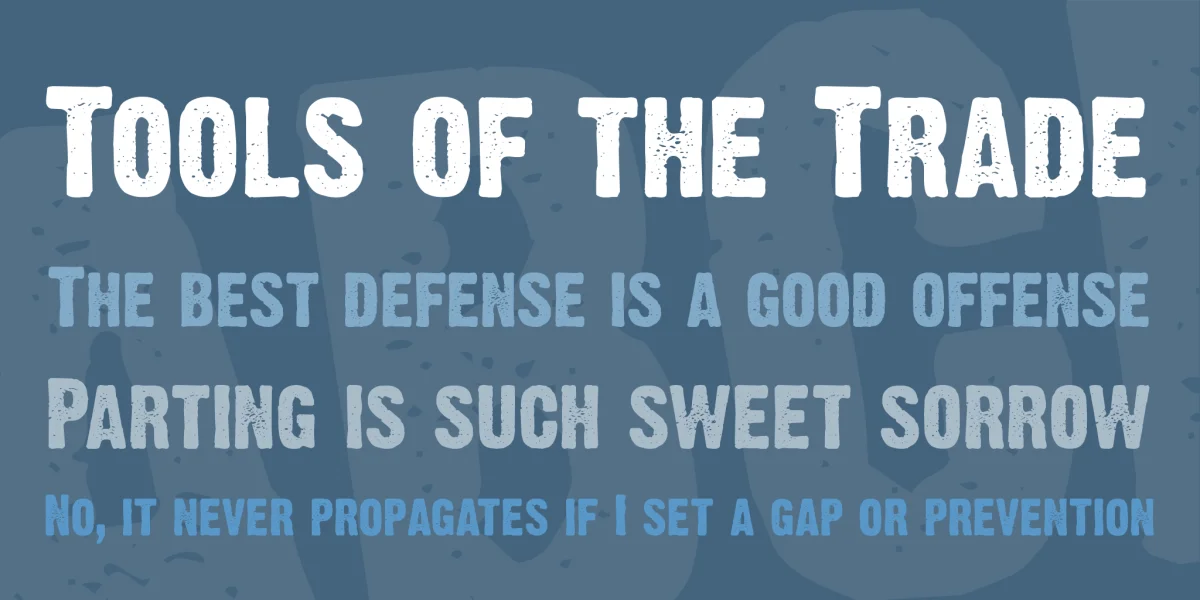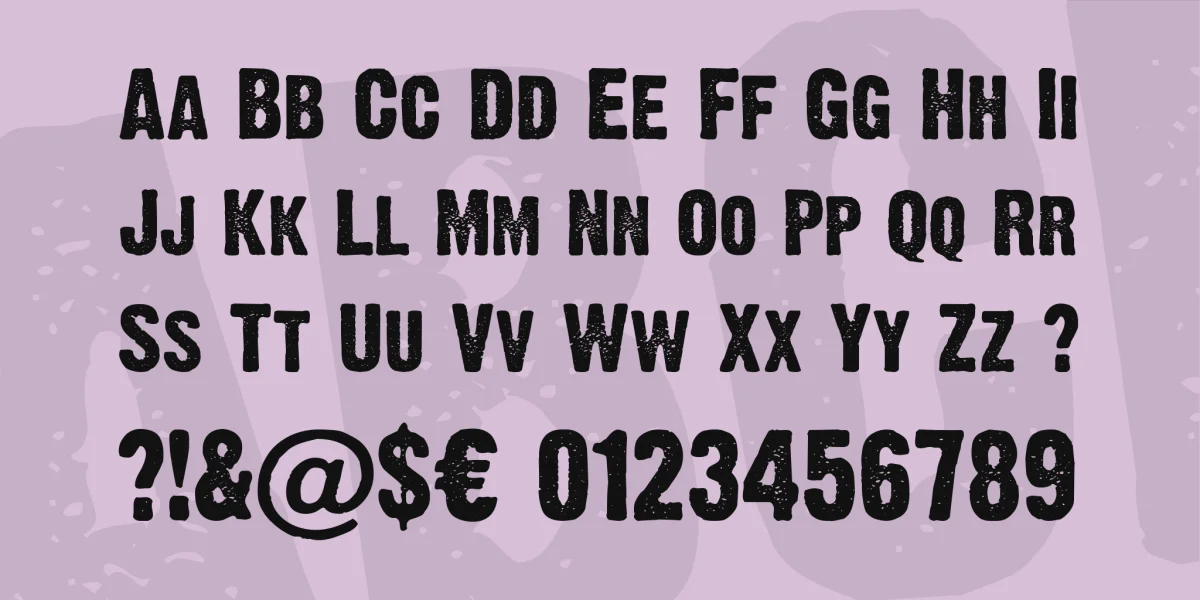
"Dirty Headline" is a stressed font designed to emulate old poster headers. I created it, a few years ago, for FLY FROM EVIL, my crime-drama RPG.
FLY FROM EVIL remains in development as of this writing, but Dirty Headline has made its way into the paint-boxes of graphic designers the world over, appearing on book covers, billboards, shirts, movie screens, TV advertisements, lottery tickets, handbills and everything else you can see a font on. This font has made me friends, put groceries on the table, and given me the curious pleasure of having placed a gentle fingerprint on the globe.
I built the original font to suit the needs of its target project, so v1 had a limited character set. It was plenty for its intended role, but these days, Dirty Headline has more duties to answer to, so here we are with a revised and expanded version. v2 fills out the entire U.S. keyboard set, and adds other glyphs including smart quotes and money symbols (generic currency, pound sterling, euro, yen and cent).
It's still by no means complete (especially for use outside the English language), but it's now a much more versatile example of its species, and (of course) it will continue to grow and improve. Most of the additions in this version began as private commissions from licensed users. Note that every version of Dirty Headline has slightly different metrics, so replace earlier designs with care.